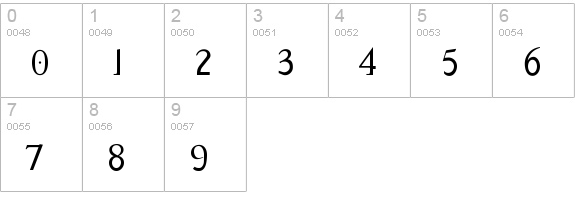
Missive Font Details
Missive font is a stylish and elegant typeface that exudes sophistication and charm. Its timeless design makes it suitable for a wide range of projects, from branding and packaging to invitations and editorial design. With its clean lines and subtle curves, Missive font brings a touch of class to any text. What sets Missive font apart is that it is available for free download at FontsMarket.com. This means that designers and creatives can easily access this beautiful font without any cost, making it a valuable addition to any font collection. Whether you're working on a personal project or a client's commission, Missive font is sure to elevate your designs with its refined aesthetic and versatility. Download Missive font today and bring a touch of elegance to your next project.